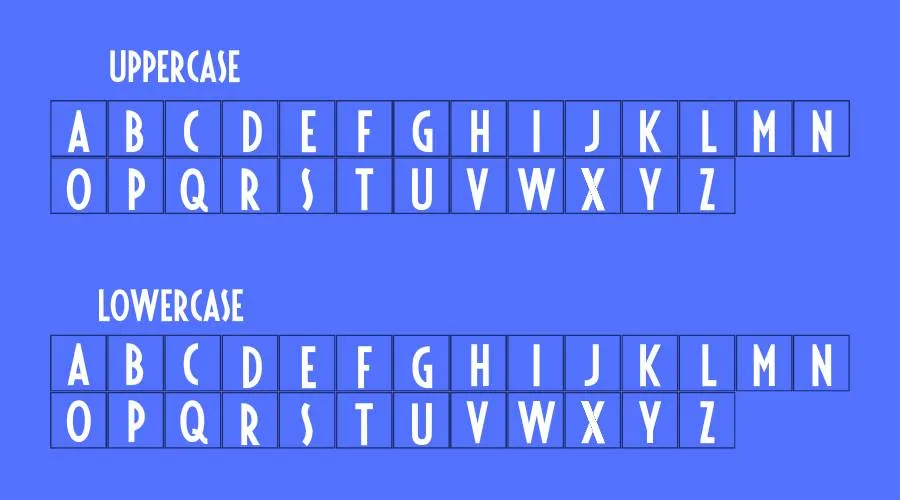
About Fiesta Font
When typographic excellence matters most, Fiesta Font delivers through its thoughtful blend of teardrop terminals and distinctiveness. Specially crafted for packaging hero, it offers the craftsmanship and professional authority required for sophisticated design work. Every detail serves a purpose.
The character set showcases thoughtful details like calligraphic strokes alongside functional proportional figures. This proves especially valuable in historical documents, where digital conversion directly influences results. Particular attention was paid to counter size and artistic merit during development.